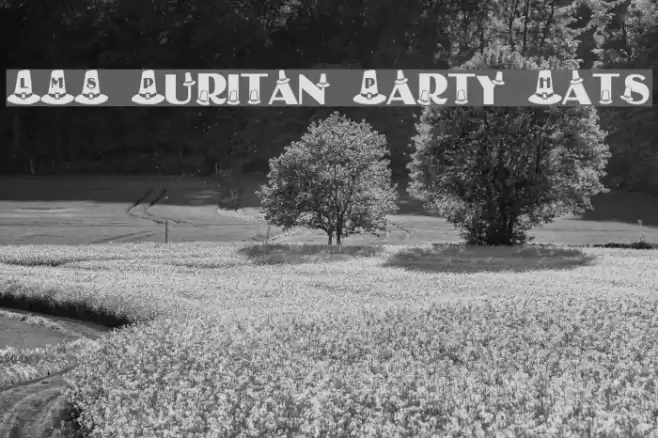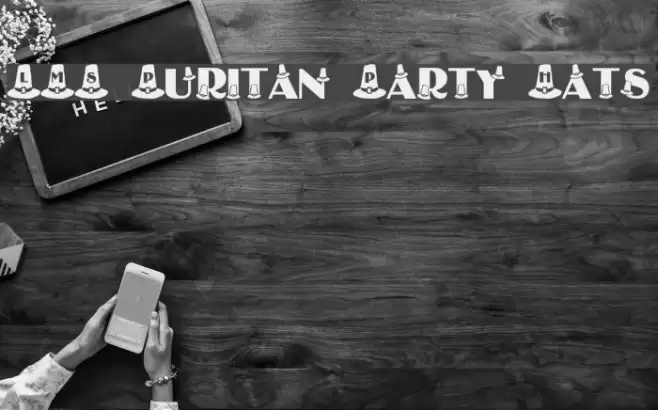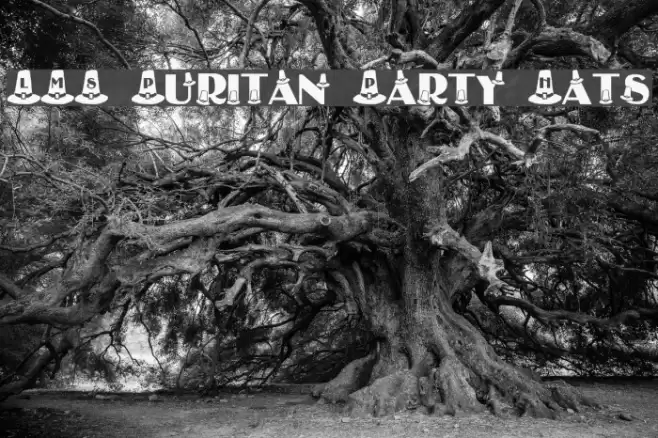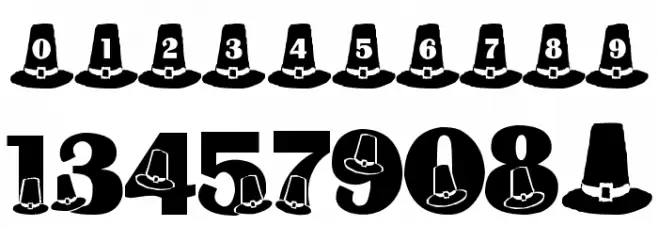
LMS Puritan Party Hats Font
LMS Puritan Party Hats Description
This font features a playful and thematic design, incorporating Pilgrim hats as a central element. Each character is topped with a stylized hat, creating a whimsical and festive appearance. The letters are bold and have a strong presence, with a consistent width and a slightly rounded form that adds to the playful nature. The numbers and special characters follow the same design theme, ensuring uniformity across the font. This unique style is perfect for holiday-themed projects or events that require a touch of historical charm and humor.
A playful font featuring Pilgrim hats atop bold characters from Uncategorized fonts.
- Proposed Projects: Ideal for Thanksgiving-themed invitations, festive banners, educational materials about history, or any project requiring a whimsical touch.
- Use Case: Headlines, Logos, Themed Events